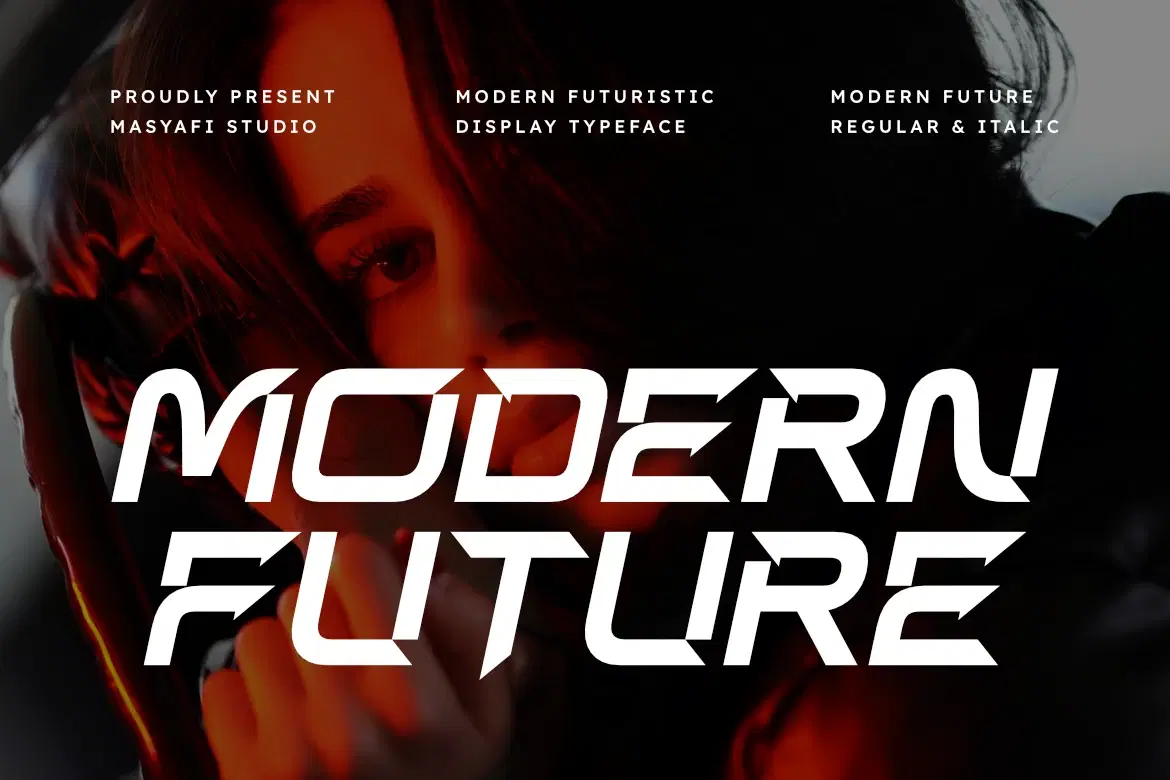
Modern Future - Futuristic Display Typeface
Modern Future is a bold, high-octane display typeface designed for the digital age. Featuring sharp, aggressive angles and a dynamic leaning structure, this font captures the essence of speed, innovation, and cutting-edge technology.
It is the ultimate choice for designers working on e-sports branding, automotive graphics, tech startup identities, and sci-fi cinematic projects. Modern Future includes both Regular and Italic styles, giving you the flexibility to create high-impact headlines and logos that command attention in any futuristic or industrial context.
Bold & Dynamic Futuristic Display style.
Sharp, aggressive geometric architecture.
Includes Regular and Italic versions.
Optimized for high-impact branding and headlines.